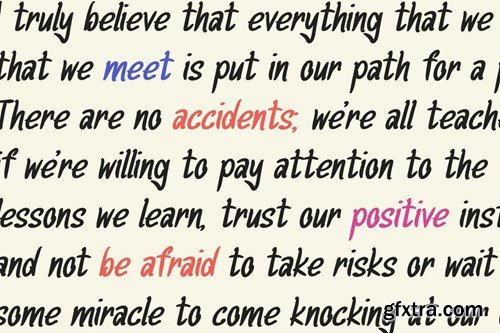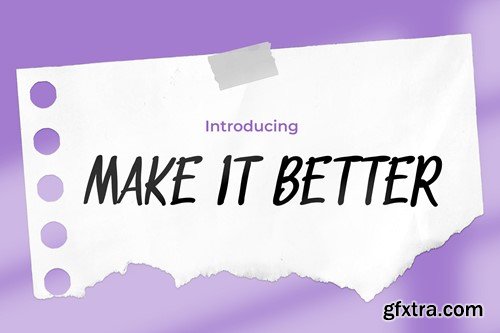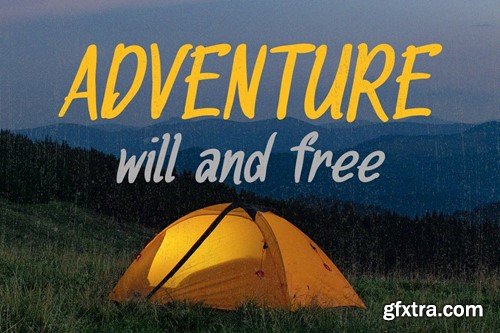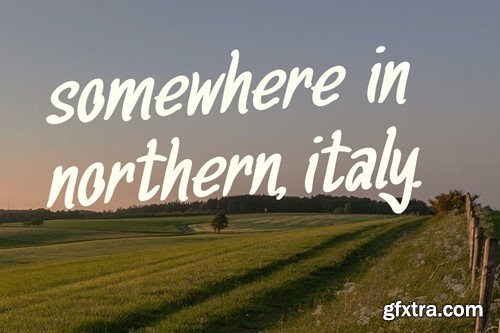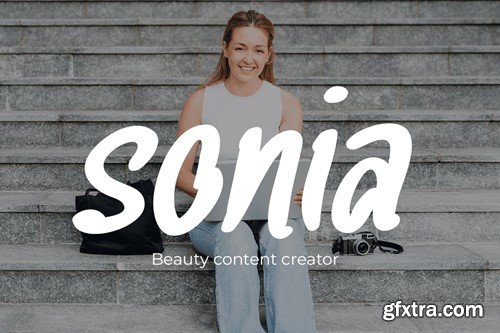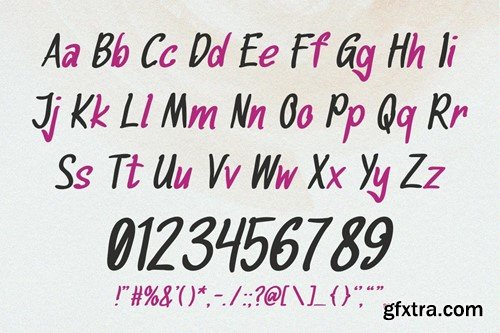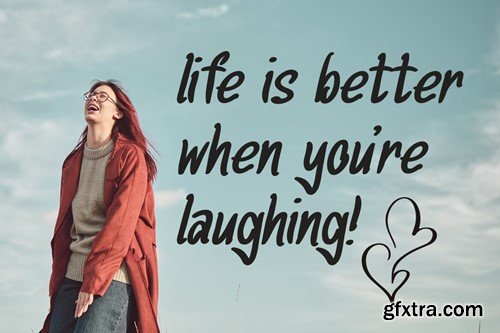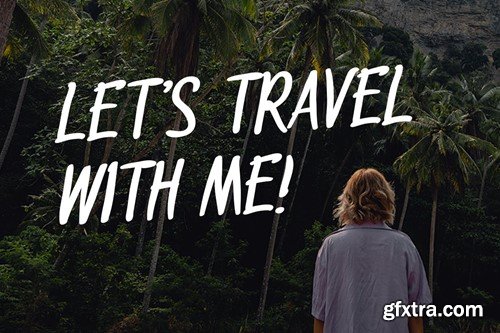
Make it Better - Elegance in Handwritten Font MHG4UL2
Make it Better - Elegance in Handwritten Font
Make it Better is a handwritten font that artfully combines elegance with a whimsy touch, echoing school notes' casual charm. Its graceful yet playful style is perfect for various design applications, blending sophistication with a friendly, accessible vibe. In logos, Make it Better adds a personalized elegance, making brands appear refined and approachable. This font's blend of cute and elegant characteristics makes it ideal for quotes, where it can convey messages with both style and a sense of intimacy. For invitations, it sets a tone of informal elegance, creating an atmosphere that's both inviting and stylish. When used in posters and greetings, Make it Better communicates with a warmth and charm that's instantly engaging, perfectly balancing its elegant script with a down-to-earth feel.
In packaging and branding, Make it Better provides a distinctive identity that combines sophistication with the nostalgia of handwritten notes, ideal for products and brands that want to convey authenticity and elegance. For book covers, event promotions, headlines, and advertising, this font ensures your message resonates with charm and character, appealing to a broad audience with its unique blend of elegance and whimsy.